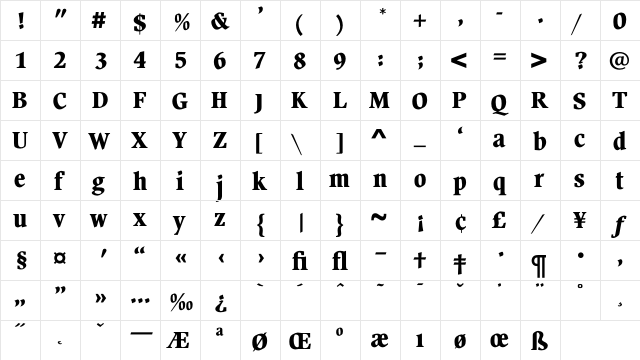
BeckenhamExtraBold Regular
Design Context for BeckenhamExtraBold Typeface
BeckenhamExtraBold is a composed and adaptable typeface that performs quietly and consistently across a wide range of design contexts. Its bold stroke weight gives it real presence on the page.